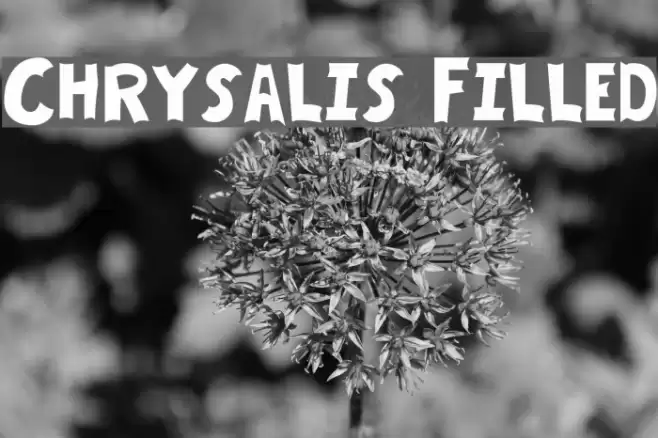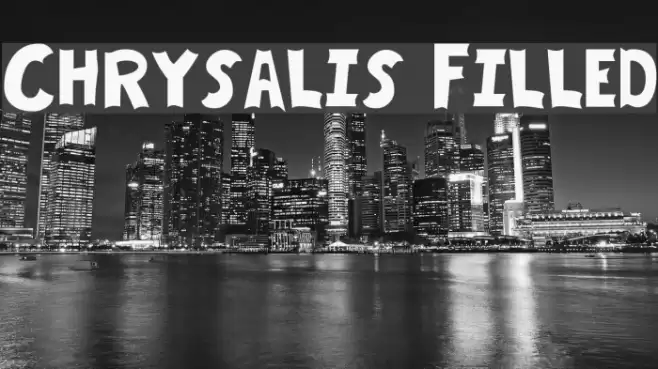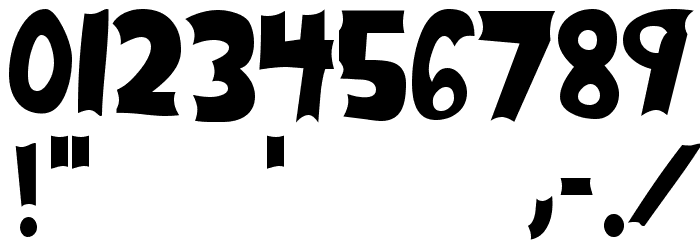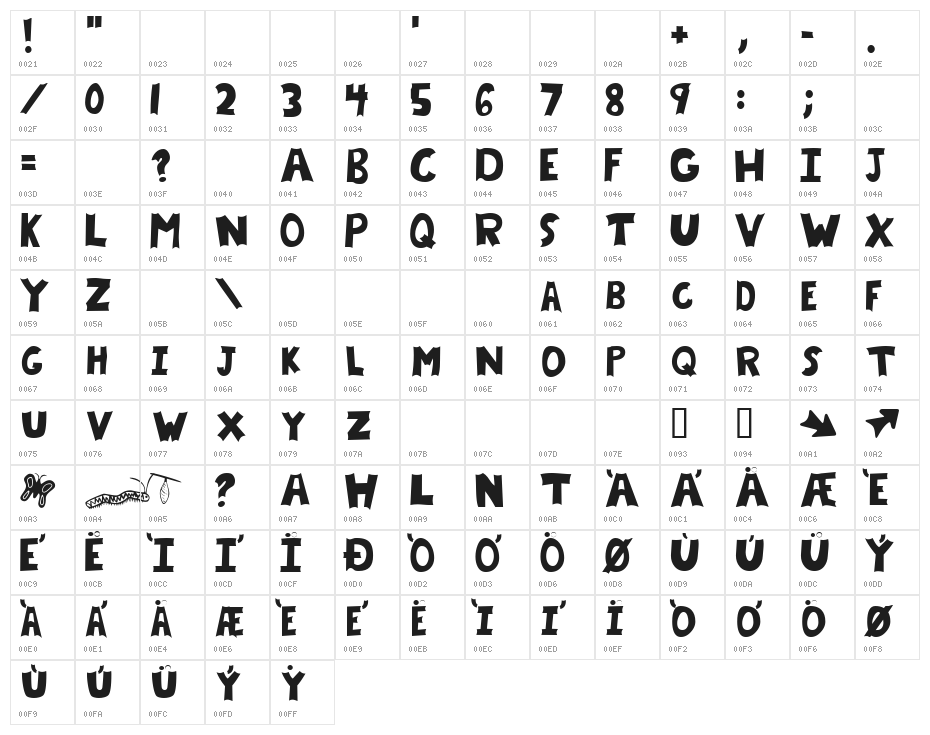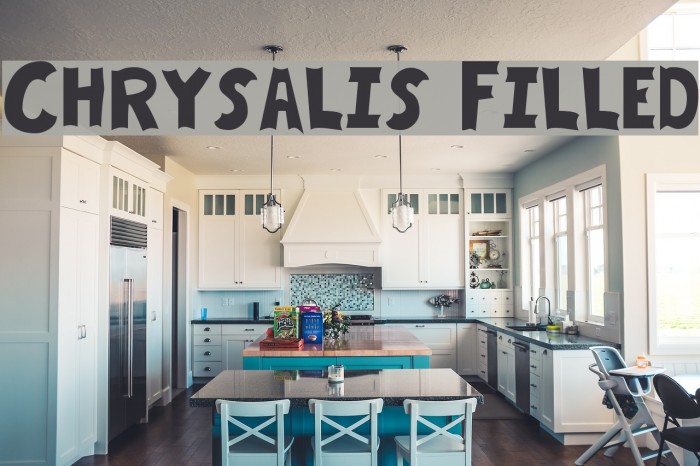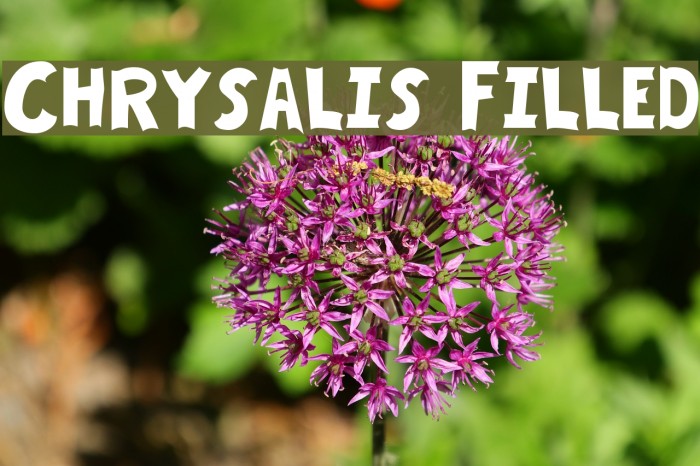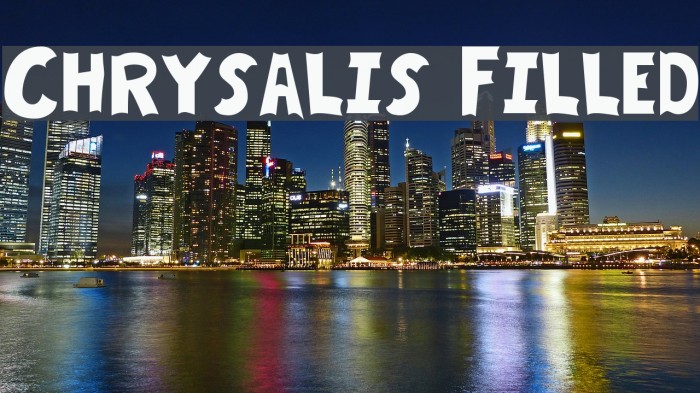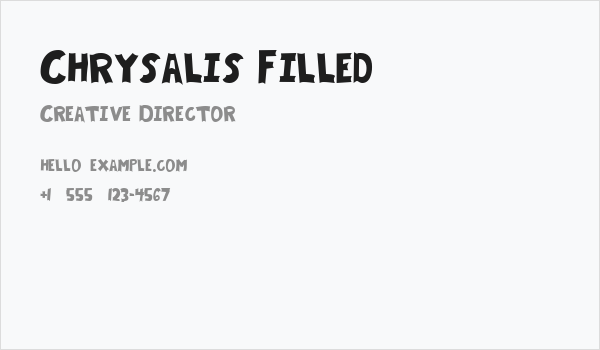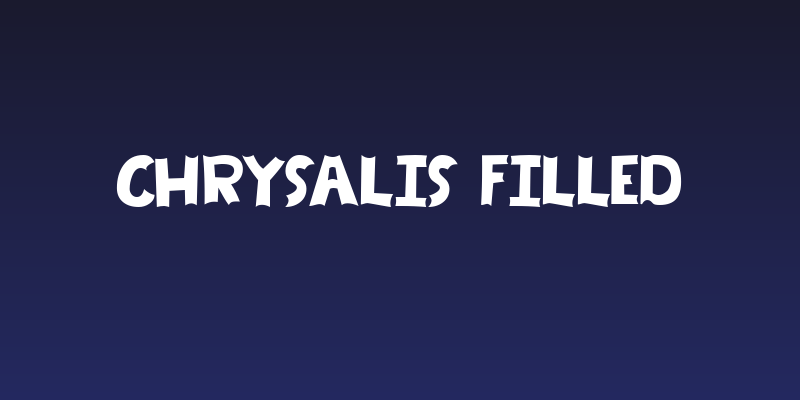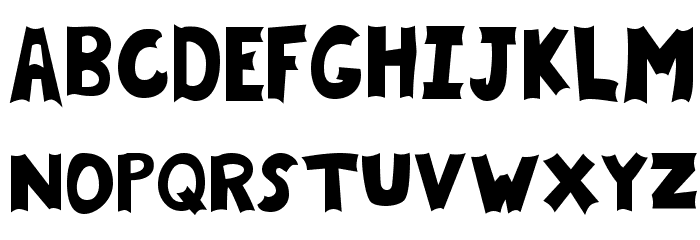
Chrysalis Filled Font
Chrysalis Filled Description
This font features a bold and playful design with a unique, quirky style. The characters have an irregular, hand-drawn appearance, giving them a lively and dynamic feel. The uppercase and lowercase letters maintain a consistent weight, with exaggerated curves and angles that add to the font's whimsical nature. The numbers and special characters follow the same playful theme, making the font suitable for creative and informal projects. The overall aesthetic is bold and eye-catching, perfect for making a statement.
A bold, playful font with a quirky, hand-drawn style from Kids fonts.
- Proposed Projects: Ideal for children's books, comic strips, playful branding, and creative posters.
- Overall Style: Playful, Quirky, Hand-drawn